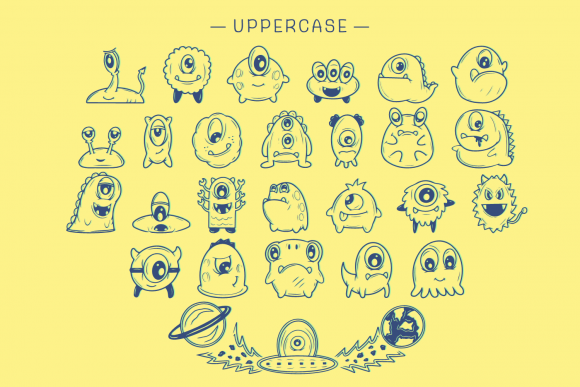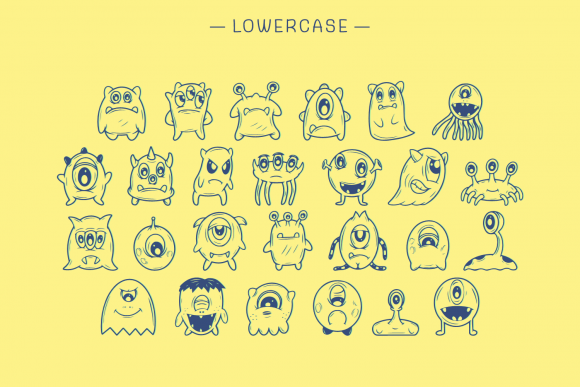
Introduction to Newcomers Font
Have you ever been in the middle of a creative project, staring at a blank canvas or a dull page, trying to come up with the perfect design element to tie everything together? For designers, this can be a frustrating moment, but it can also be a spark of inspiration waiting to happen.
I recall a time when I was working on a project and needed a unique border to separate sections. That’s when I stumbled upon the Newcomers Font, a high-quality dingbats font comprised of adorable, hand-drawn aliens. The transparent background made it easy to integrate into my design, and the cute alien characters added a playful touch that elevated the entire project. With the Newcomers Font, designers can add a creative and eye-catching element to their work, making it a valuable resource for any design project.
Key Features of Newcomers Font
- High-quality design resource suitable for creative projects, including digital and print media.
- Features a transparent background, allowing for easy layering and customization in design projects.
- Includes a comprehensive set of characters, including uppercase and lowercase letters, numbers, and punctuation marks.
- Supports a wide range of languages, making it an ideal choice for multilingual creative projects.
- Comes in a single weight, ensuring a consistent design aesthetic across all projects.
Honest Review: Newcomers Font
As a designer, I’m always on the lookout for high quality design resources that can elevate my creative projects. The Newcomers Font has caught my attention, and I’m excited to share my honest review.
- Beautiful, modern aesthetic that’s perfect for creative projects
- Transparent background makes it easy to work with, even for non-designers
- High quality font that’s perfect for digital and print materials
I’ve been using the Newcomers Font for a few weeks now, and I’m impressed with its versatility. From headings to body text, it looks great in a variety of contexts.
- May not be suitable for projects that require a more traditional or classic font style
- Not as extensive a font family as some other popular fonts
Overall, I’m happy to recommend the Newcomers Font to fellow designers. Its modern aesthetic and high quality make it an excellent addition to any design resource library.
Introduction to Newcomers Font
The Newcomers Font is a high-quality, free design resource ideal for creative projects that require a modern and sleek aesthetic. This versatile font features a transparent background, making it perfect for overlaying on images or using as a standalone design element.
Tips for Getting the Most Out of Newcomers Font
To get the most out of the Newcomers Font, try using it in combination with other design elements, such as images and shapes, to create a visually appealing and cohesive design. You can also experiment with different font sizes and styles to add depth and interest to your design.
The Newcomers Font is ideal for a variety of creative projects, including social media graphics, blog posts, and marketing materials. Its modern and sleek aesthetic makes it perfect for industries such as technology, fashion, and lifestyle.